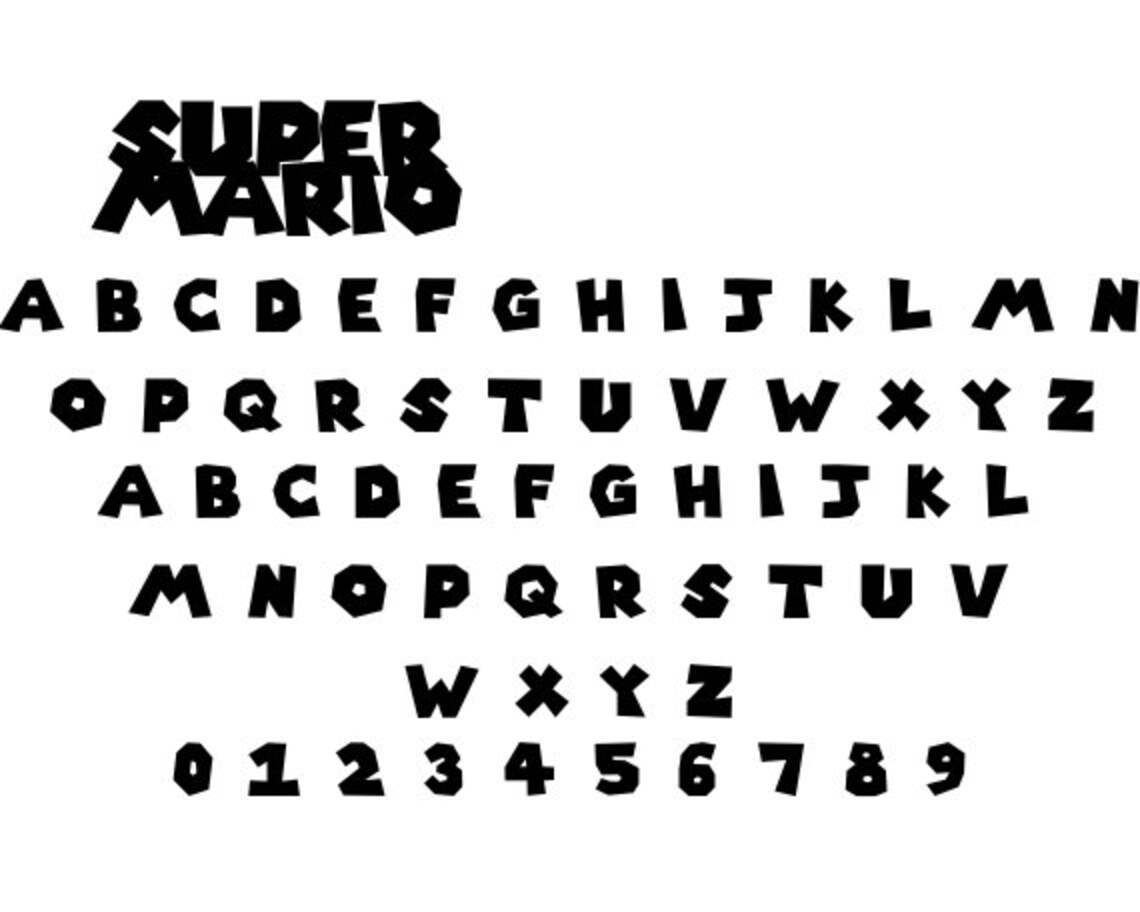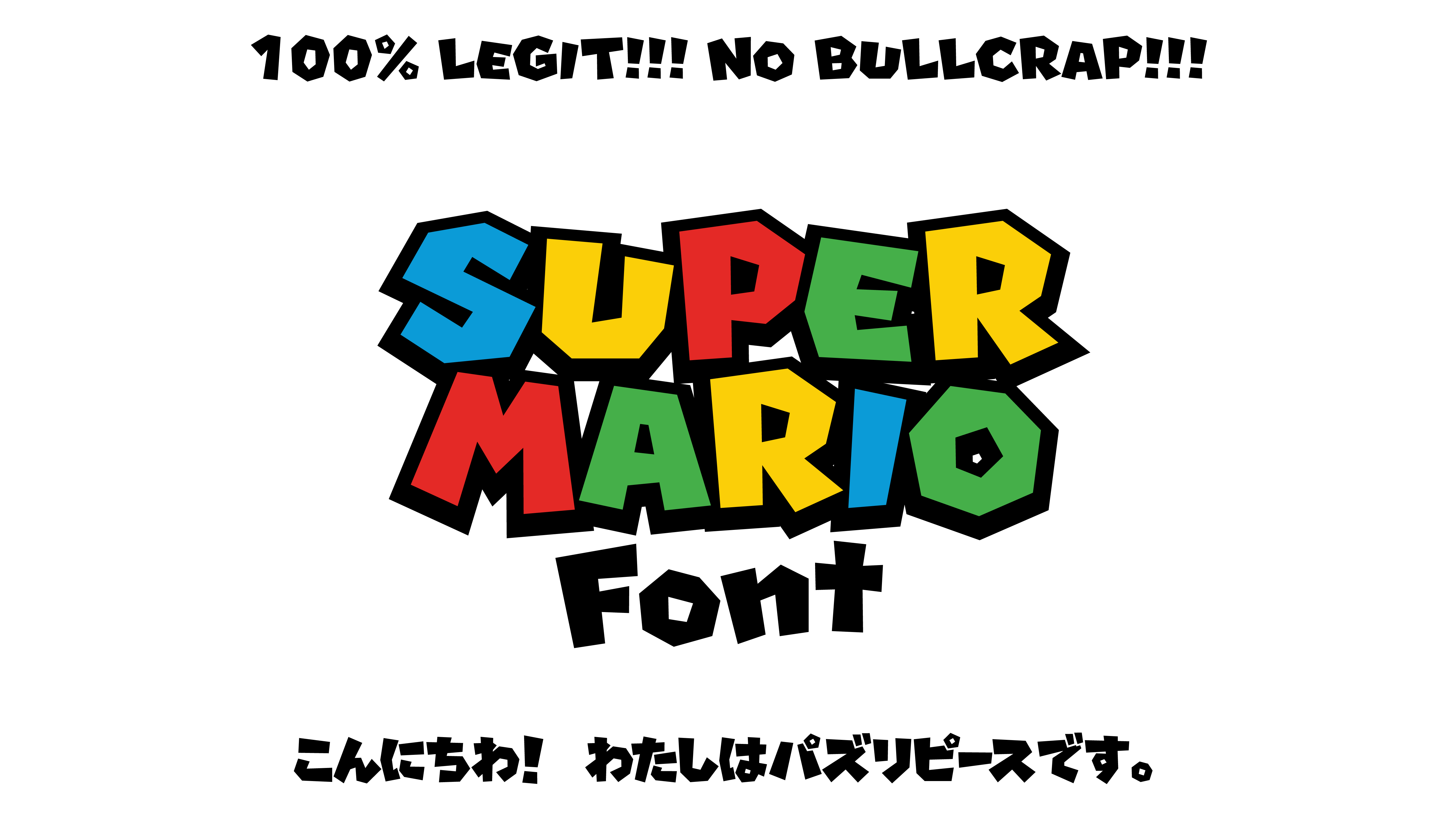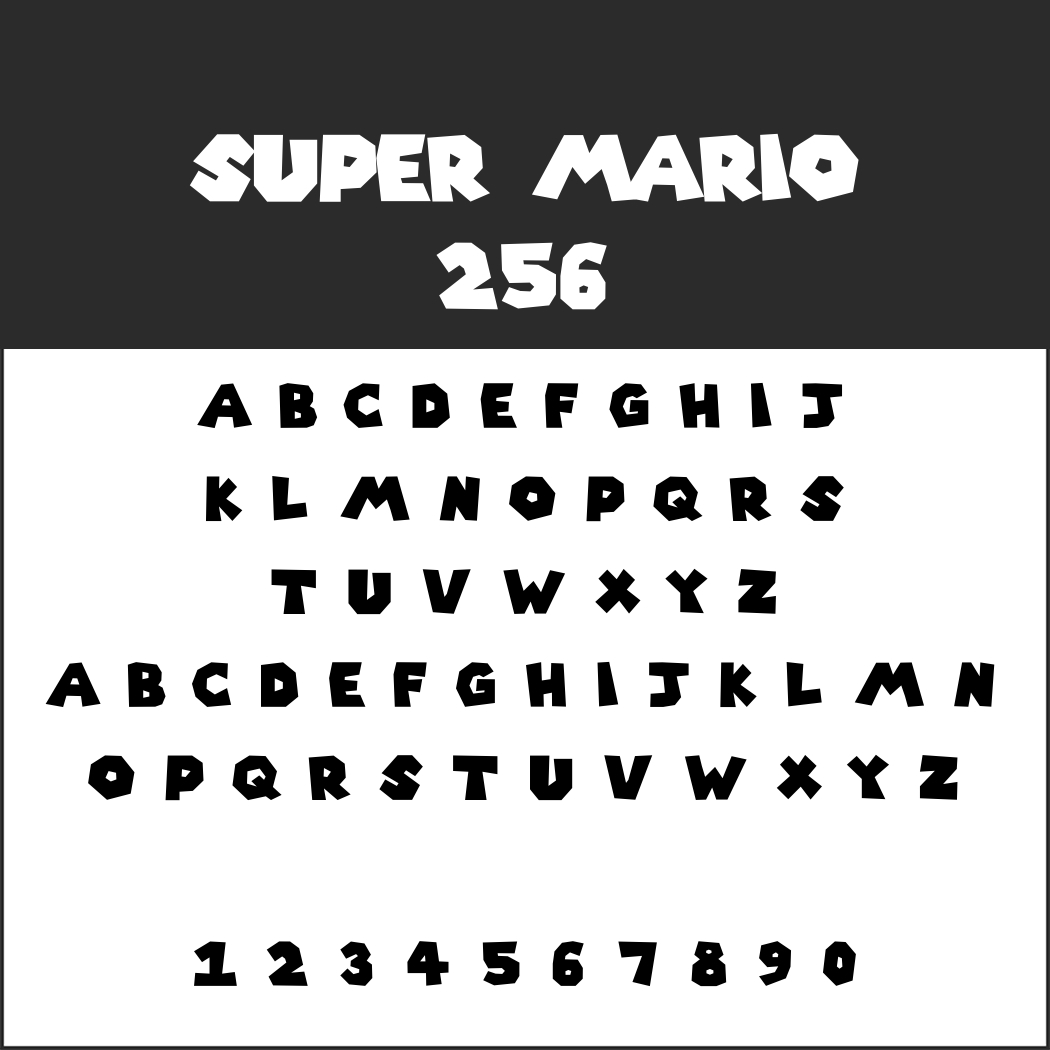
Mario Letters Font
Mario Letters Font - Create captivating designs inspired by the iconic super mario games. Free download of super mario 286 font. Unleash the power of 3d. Released in 2015 by 538fonts and.